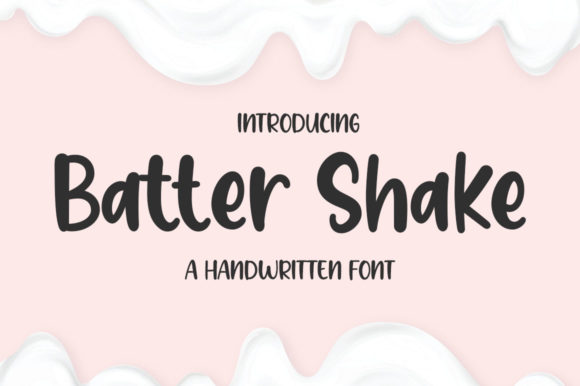
Feast your eyes on Batter Shake, a sensational script font born from the creative genius of Graphix Line Studio. Picture this: a delicate fusion of handwritten elegance and down-to-earth charm, perfectly capturing the allure of Asian cuisine. Batter Shake is no ordinary font; it's an artistic symphony of graceful curves and flowing lines, guaranteed to tantalize your creative taste buds.
Unleash the culinary artist within, and let Batter Shake transform your designs into mouthwatering masterpieces. Whether you're crafting chalkboard signs for your local noodle bar or creating eye-catching menus for your Asian-inspired restaurant, Batter Shake is your secret ingredient for success. Its authentic strokes will infuse your designs with a touch of realism, authenticity, and undeniable charm.
Don't limit yourself to the kitchen, though. Batter Shake's versatility extends beyond culinary horizons. Let its charming hand-drawn style add a personal touch to greeting cards, invitations, or social media posts. Embrace the free-spirited nature of Batter Shake, and allow it to guide you to unexpected creative destinations.
Step into the realm of culinary aesthetics with Batter Shake as your trusted companion. Let your imagination run wild as you explore a world of culinary delights, where every dish is a masterpiece and every design is a feast for the eyes. Welcome Batter Shake into your creative pantry, and let the culinary magic begin!